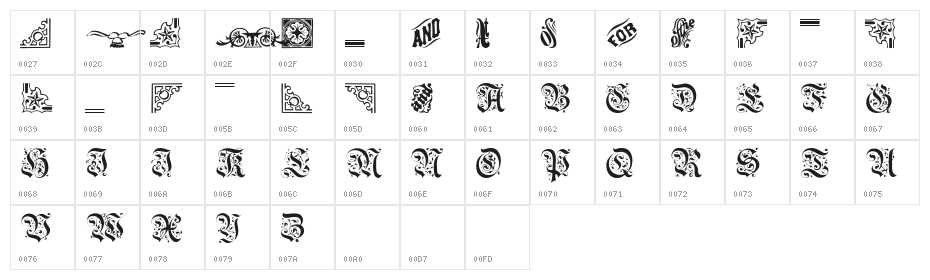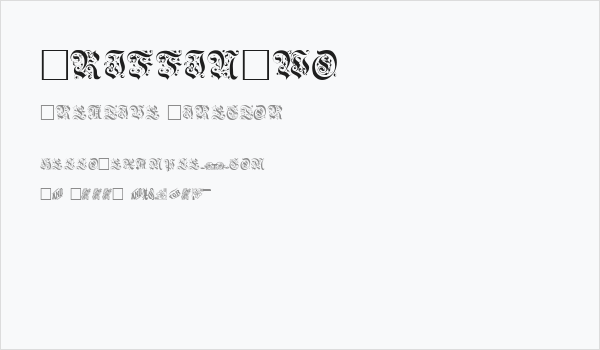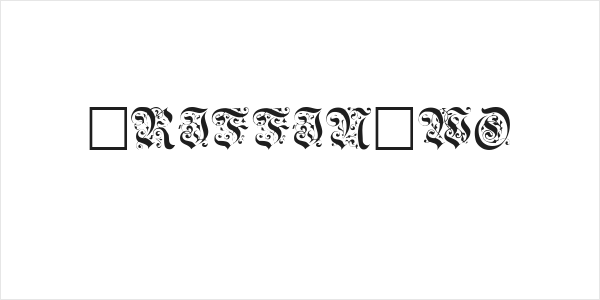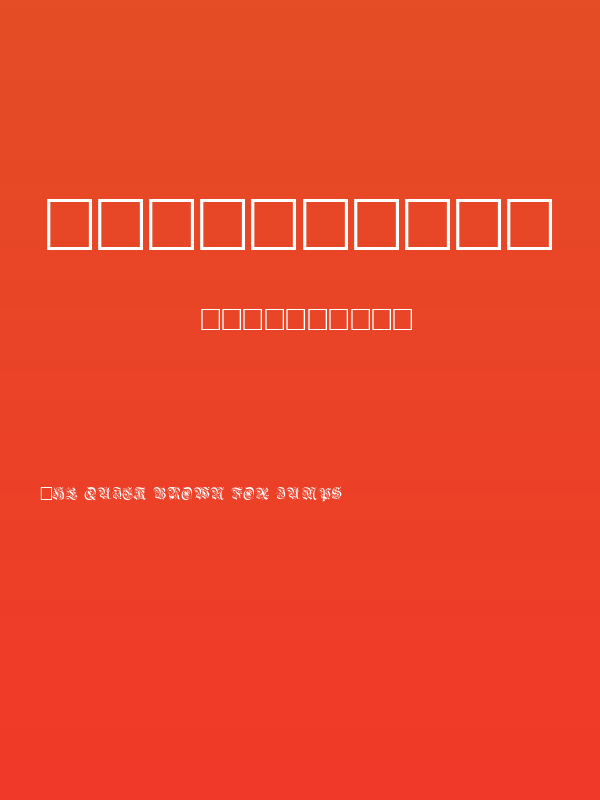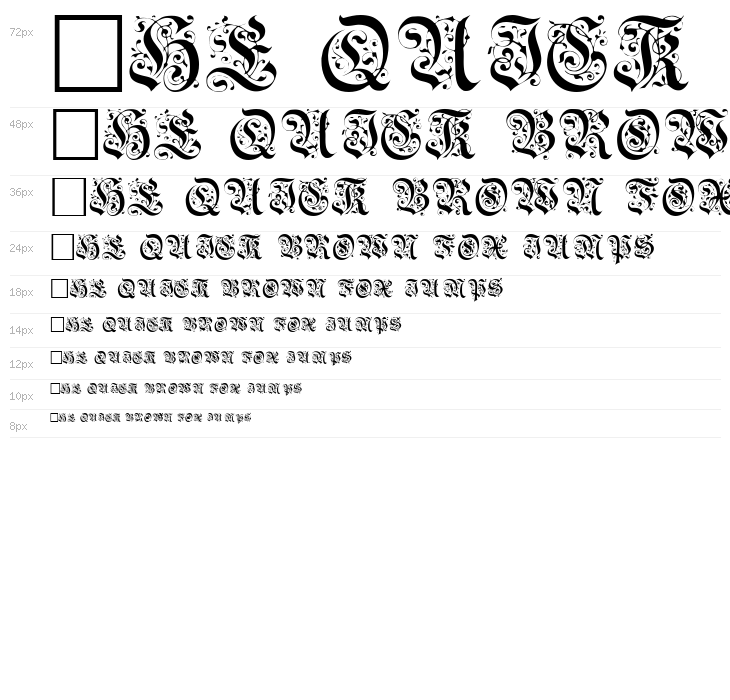
GriffinTwo Font
GriffinTwo Description
This font is a highly decorative and ornate typeface, characterized by its intricate and elaborate design. Each letter is embellished with flourishes and embellishments that give it a unique, artistic appearance. The style is reminiscent of vintage or Victorian-era typography, with a strong emphasis on aesthetics and detail. The uppercase letters are particularly bold and eye-catching, making them suitable for standout text. The font includes a variety of special characters and ligatures, enhancing its versatility for creative projects.
| Proposed Projects | Ideal for vintage-themed designs, wedding invitations, posters, and branding that requires a touch of elegance and sophistication. |